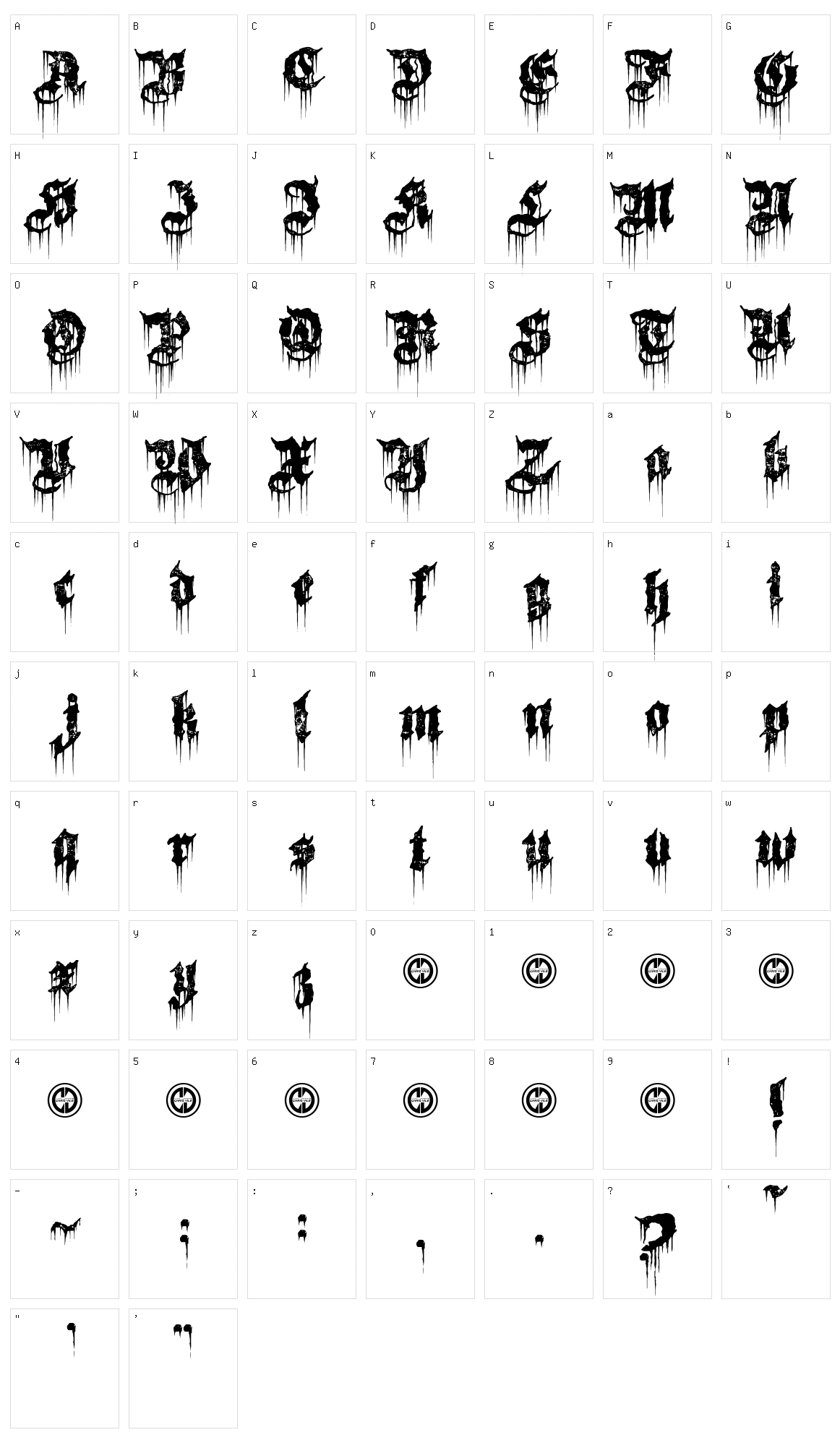
The free font Burn The Witch is carefully designed by Font Monger, showcasing a thoughtful balance of creativity and usability and falls under the Horror font style. When you download the ZIP file, it contains only 221.36 KB of font files, making it lightweight and quick to download. Please review the license details below to understand permitted usage and distribution rights. If license information is not available, we recommend using this font for personal projects only or contacting the author directly for commercial usage permissions.